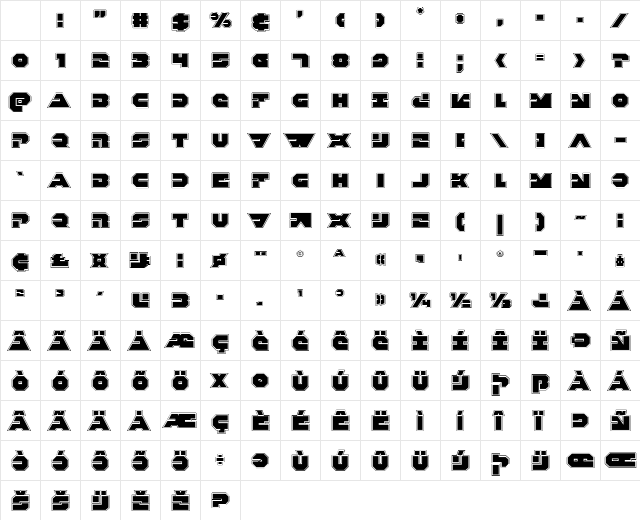
Trigger Man Pro Regular
Trigger Man Pro Family
Design Context for Trigger Man Pro
Trigger Man Pro is a composed and adaptable typeface that performs quietly and consistently across a wide range of design contexts.